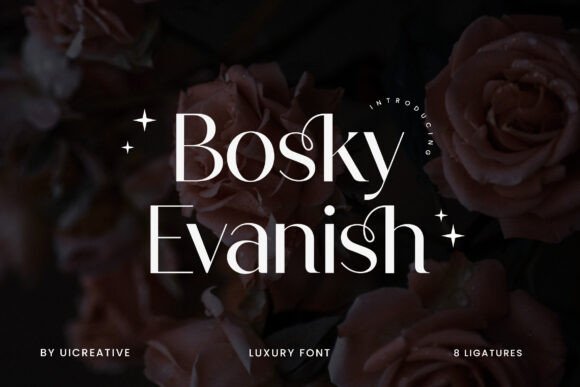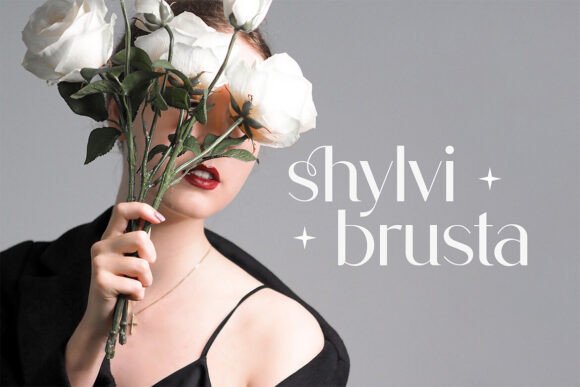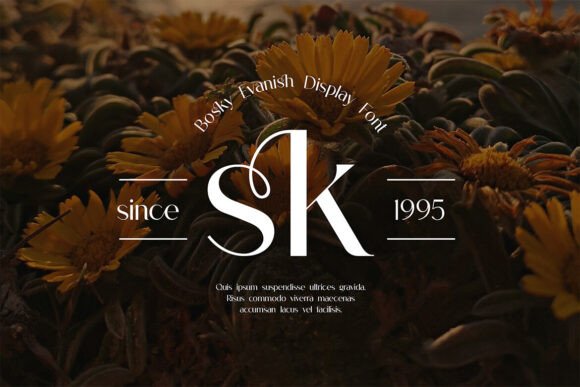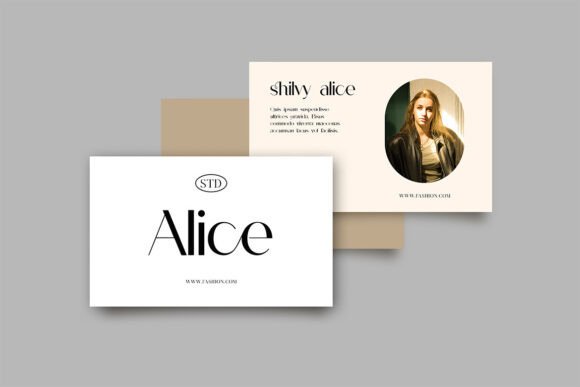
Bosky Evanish Font
About the Bosky Evanish Font
Elevate your designs with Bosky Evanish Font, a font that combines sophistication with readability. Bosky Evanish Luxury Sans Serif Font.The modern display font feels beautiful classy, elegant, and stylish. This font is ideally suited for a wide variety of projects, such as signature, stationery, logo, wedding, typography quotes, magazine or book covers, website headers, branding, and more. Also, fashion-related branding or editorial design displays both masculine and feminine qualities.
Bosky Evanish excels in display applications such as logos, headlines, and short-form text on posters or packaging. Its elegant nature makes it perfect for high-end branding projects, particularly those in fashion, beauty, or luxury goods. However, its delicate stroke weight isn’t suitable for body text or long paragraphs, nor for user interfaces requiring high legibility at small sizes.
The font’s core personality is sophisticated and subtly modern. It projects a sense of quiet confidence and understated elegance.
Pairing Bosky Evanish with a neutral sans-serif like Lato for body copy provides excellent contrast and readability. For a more playful feel, consider pairing it with a script font like Great Vibes, while a geometric sans-serif like Futura would emphasize its modern aspect.
Bosky Evanish Font Usage Examples
Bosky Evanish Font Example